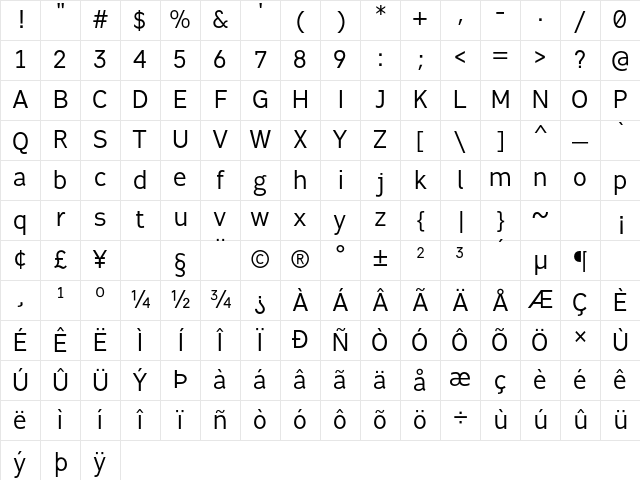
Fabrica Regular
Foundry: Alvin Kwan
Designer: Alvin Kwan
Design Context for Fabrica
Fabrica is a composed and adaptable typeface that performs quietly and consistently across a wide range of design contexts.
Pro Tip: Use Fabrica in both headline and body roles to test its range before committing to a single application.